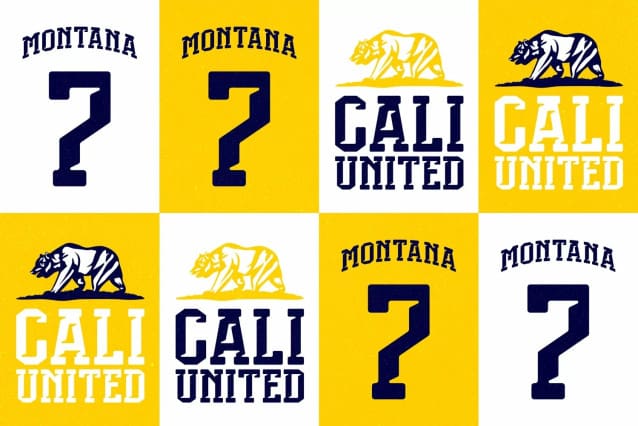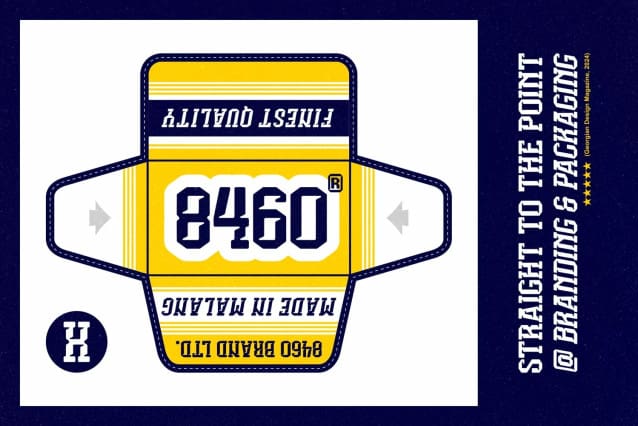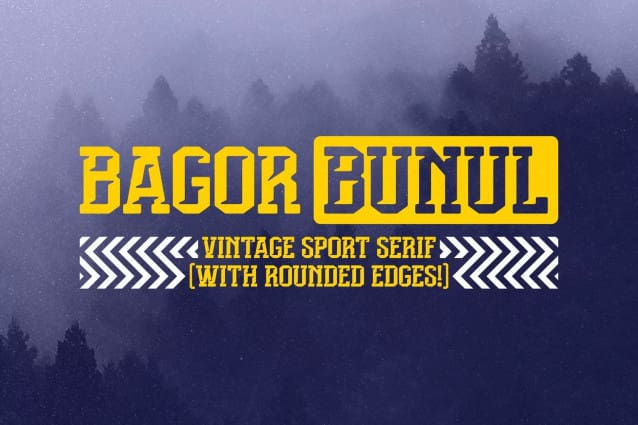
Bagor Bunul Font
Bagor Bunul Font, a blocky font inspired by the classic letters used in sports jerseys and apparel. We made it relevant to today’s trends by adding unique details. This all-caps font allows you to mix upper and lower case for more letter variations. It’s perfect for logos, branding, sports designs, headlines, posters, and more!